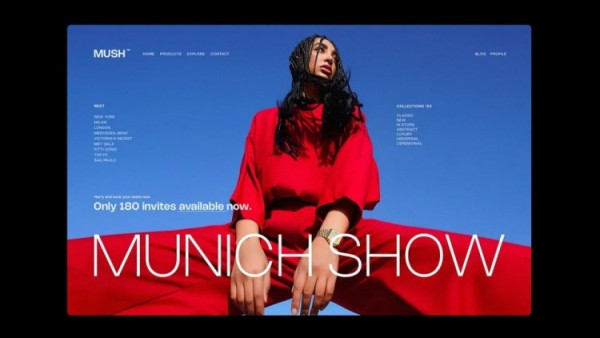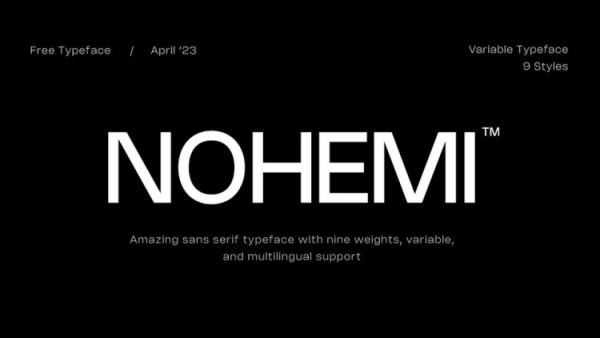
Nohemi Font
Nohemi Font is a sans serif typeface, and has nine weights, making it a universal typeface. Its neutral design and subtle character suit diverse projects, from branding and advertising to editorial and product design.
NOHEMI™ is also a variable typeface, allowing even more customization and creative flexibility. In addition, its clean lines and modern aesthetic makes it perfect for digital and print applications.